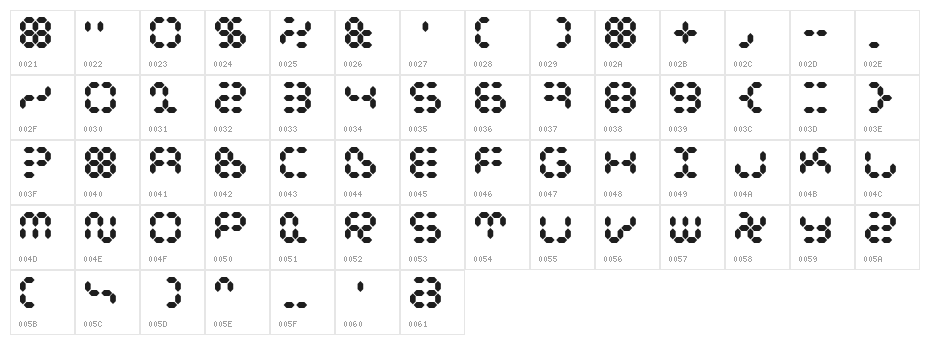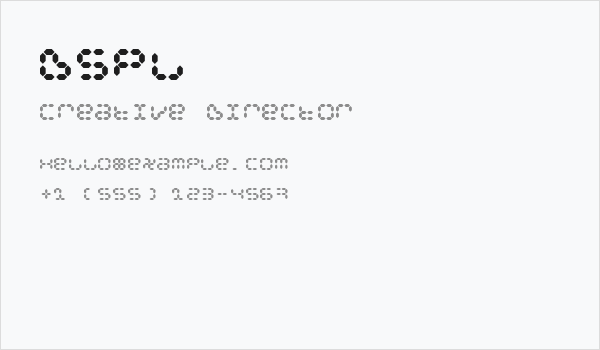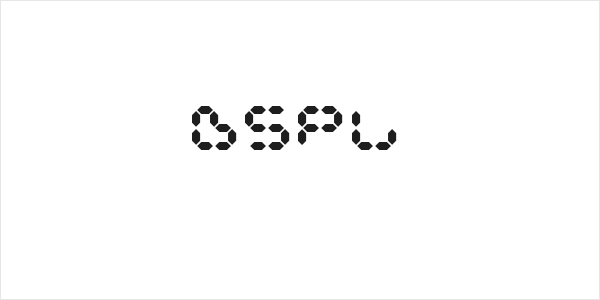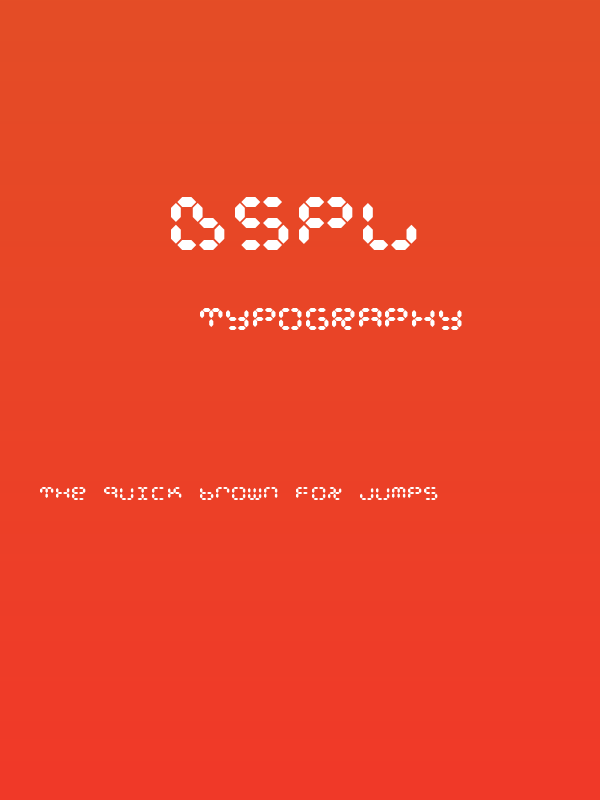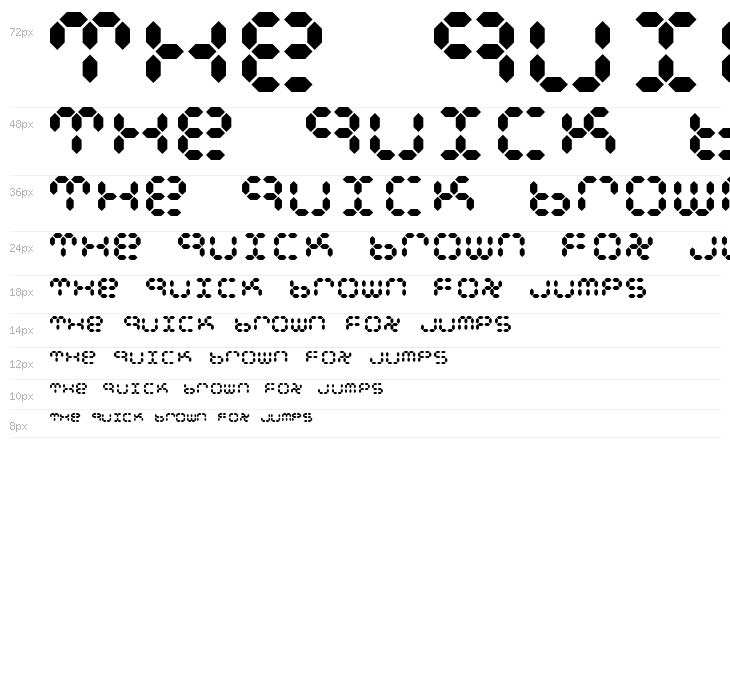
Dspl Font
Dspl Description
This font features a unique, geometric design composed of small, rounded shapes that form each character. The overall appearance is modern and digital, reminiscent of pixel art or LED displays. Each letter and number is constructed with a consistent pattern, giving it a cohesive and structured look. The font is highly stylized, making it ideal for creative and tech-oriented projects. Its distinct style ensures that it stands out, making it suitable for attention-grabbing headlines or logos. The characters are evenly spaced, maintaining a balanced and uniform appearance across all text.
| Proposed Projects | Ideal for tech-themed designs, digital art projects, futuristic branding, and creative logos. |